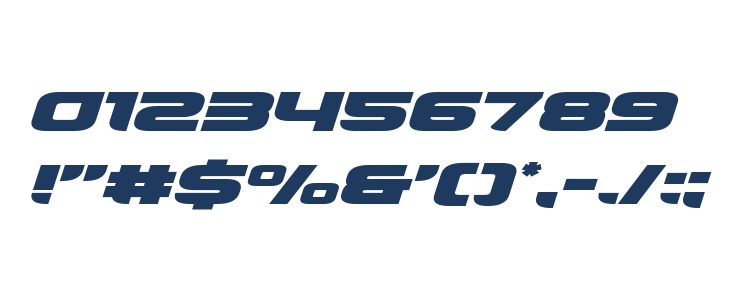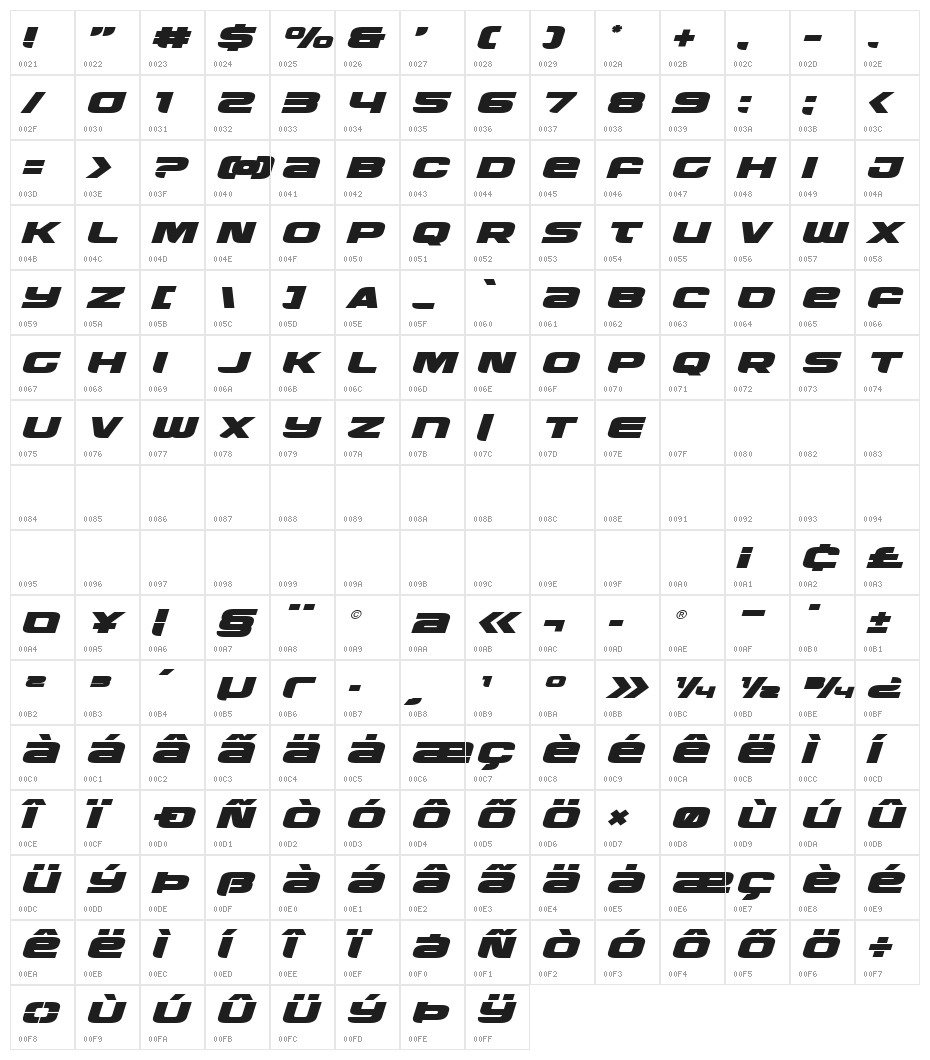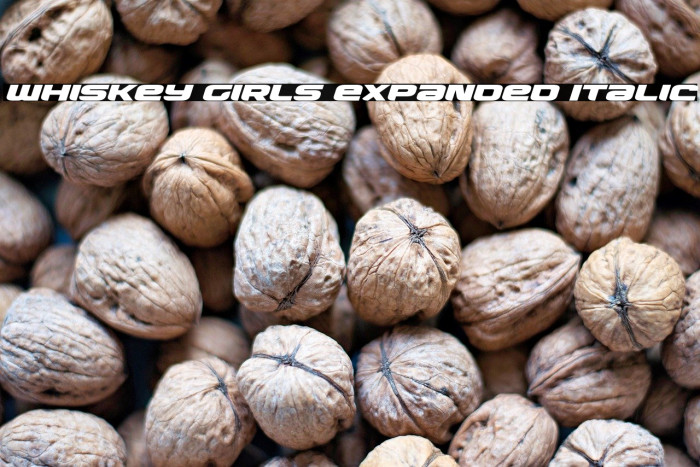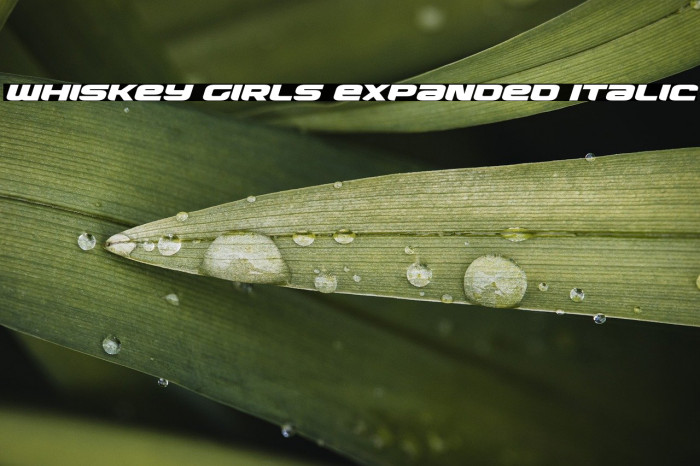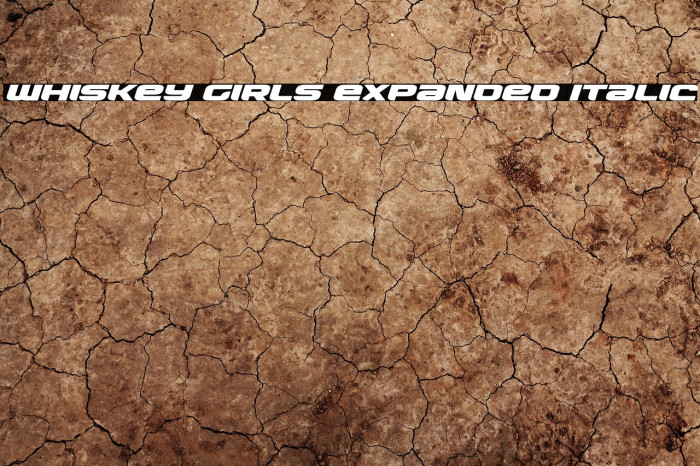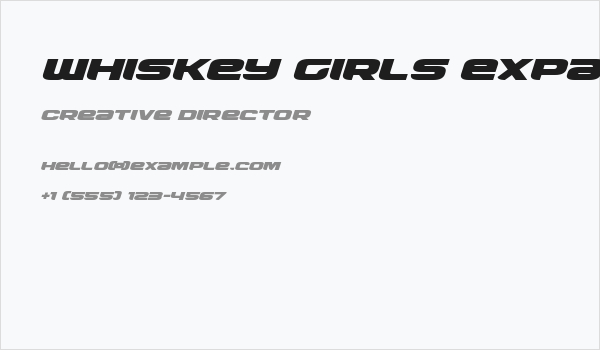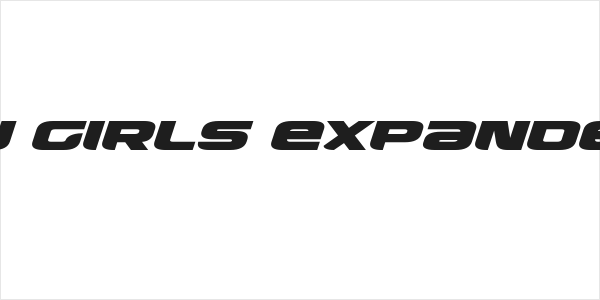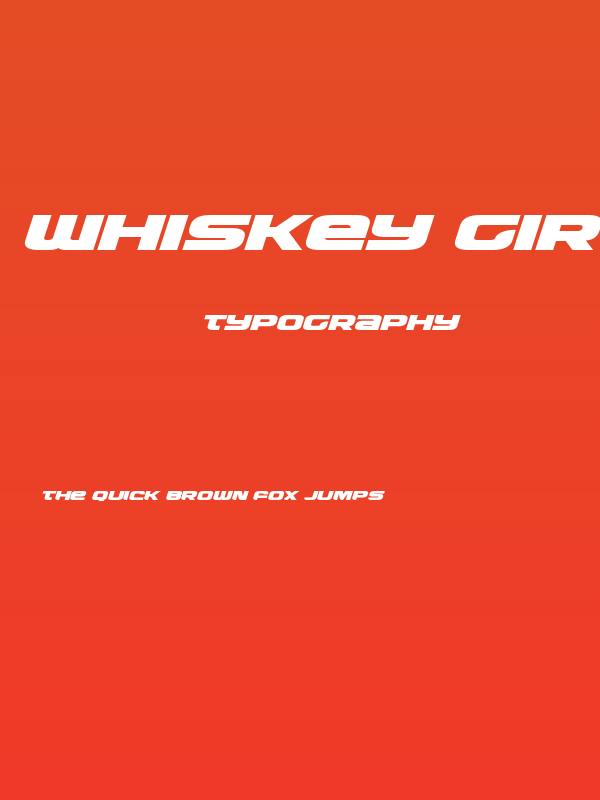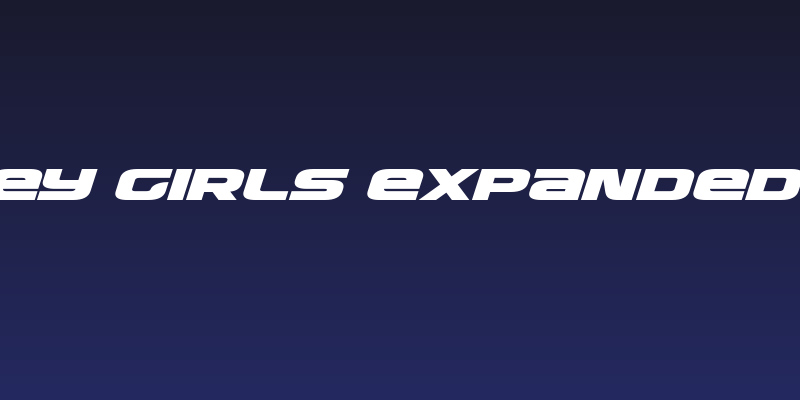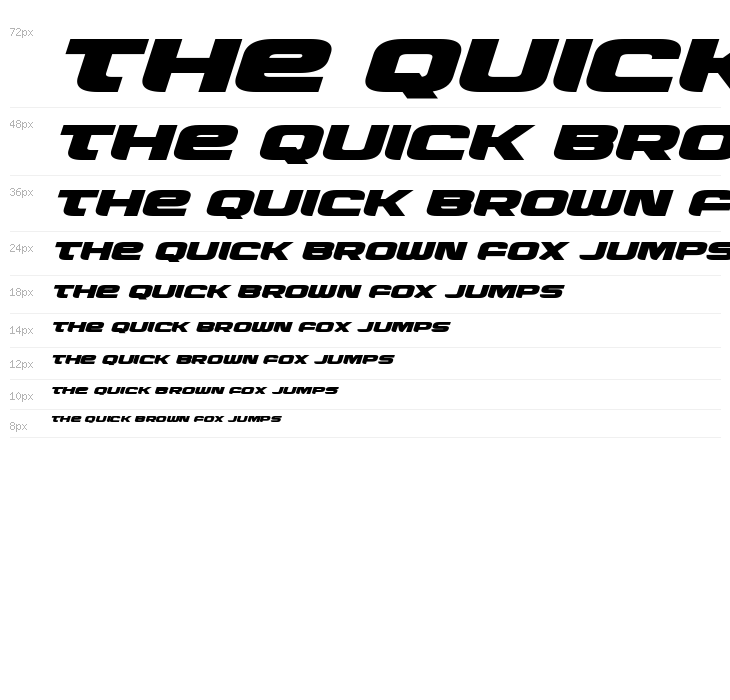
Whiskey Girls Expanded Italic Font
Whiskey Girls Expanded Italic Description
This font features a bold and dynamic style with an expanded width and italic slant, giving it a sense of movement and energy. The characters are designed with a modern aesthetic, incorporating smooth curves and sharp edges that create a sleek appearance. The uppercase and lowercase letters maintain a consistent style, while the numerals and special characters are crafted to match the overall design. The font's bold weight and expanded width make it highly legible and impactful, suitable for various design applications.
| Proposed Projects | Ideal for sports branding, dynamic posters, automotive designs, and any project needing a bold, energetic typeface. |